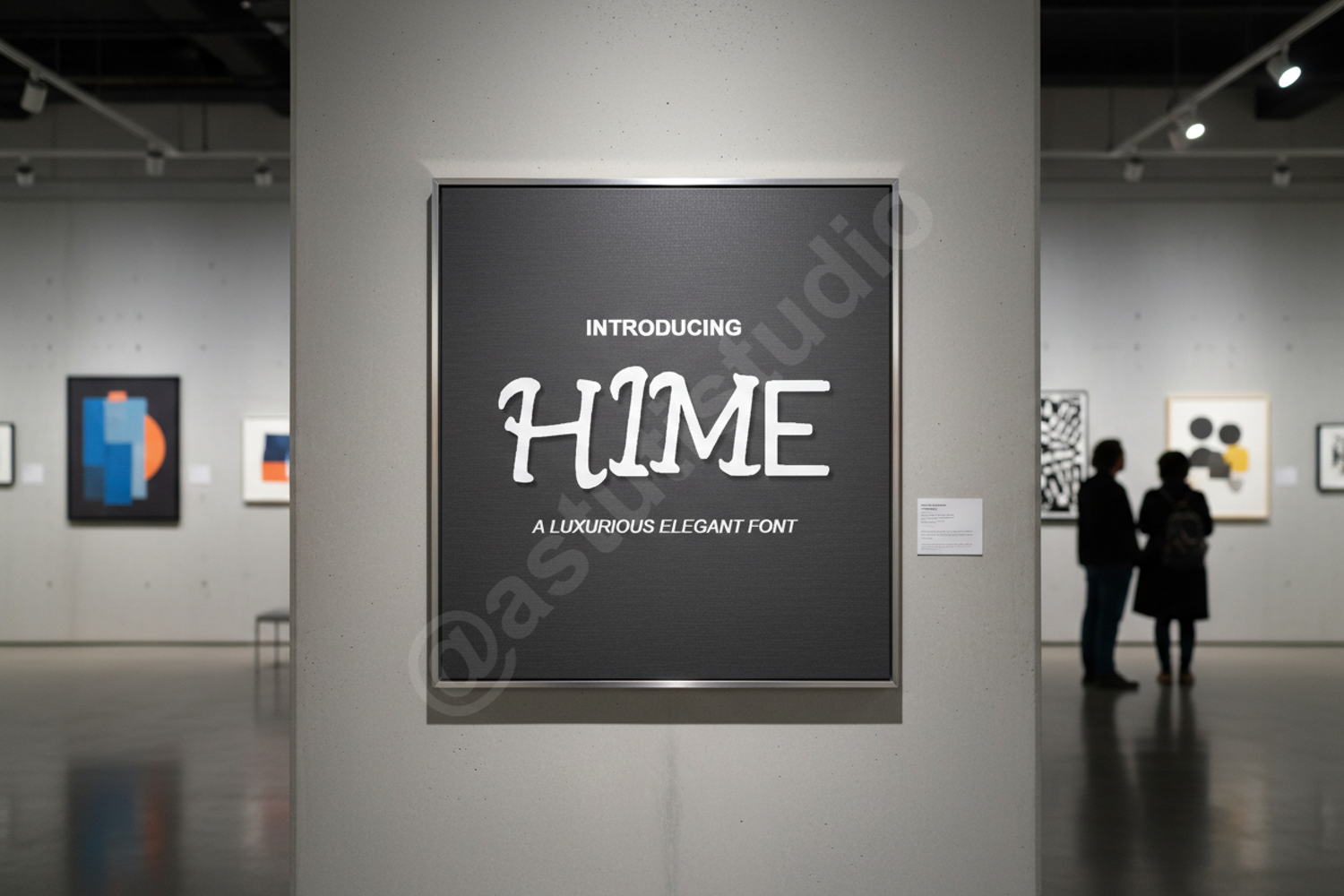
Hime - Elegant Minimalist Serif Font
Hime
Elevate your creative projects with Hime, a sophisticated serif typeface designed for high-end aesthetics. Hime blends classic proportions with modern minimalist details, offering a timeless look that exudes luxury and refinement. Whether you are crafting a high-fashion brand identity or a delicate wedding suite, this font provides the professional edge your work deserves.
- Luxury Branding: Perfect for high-end logos and corporate identities.
- Editorial Design: Ideal for magazine layouts, mastheads, and pull quotes.
- Wedding Stationery: Create stunning invitations, menus, and place cards.
- Social Media: Elevate your Instagram quotes and Pinterest graphics.
- Packaging: Add a touch of class to product labels and boxes.